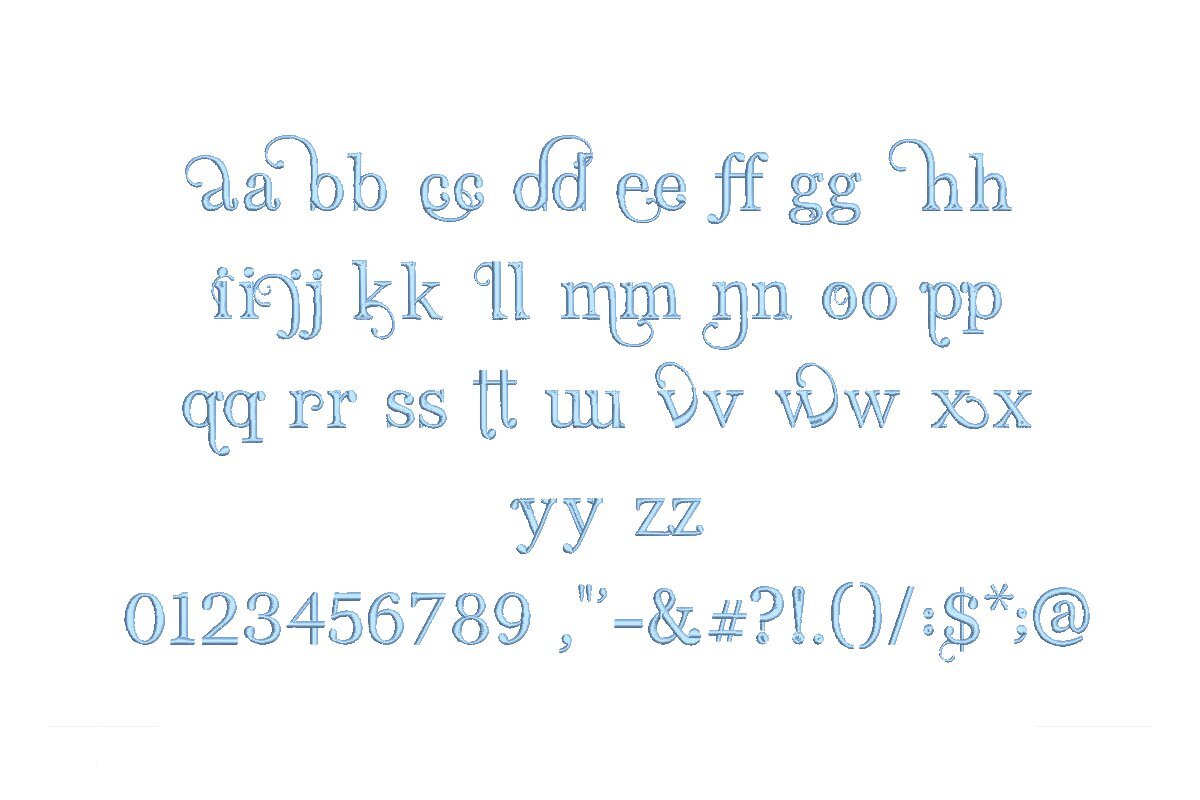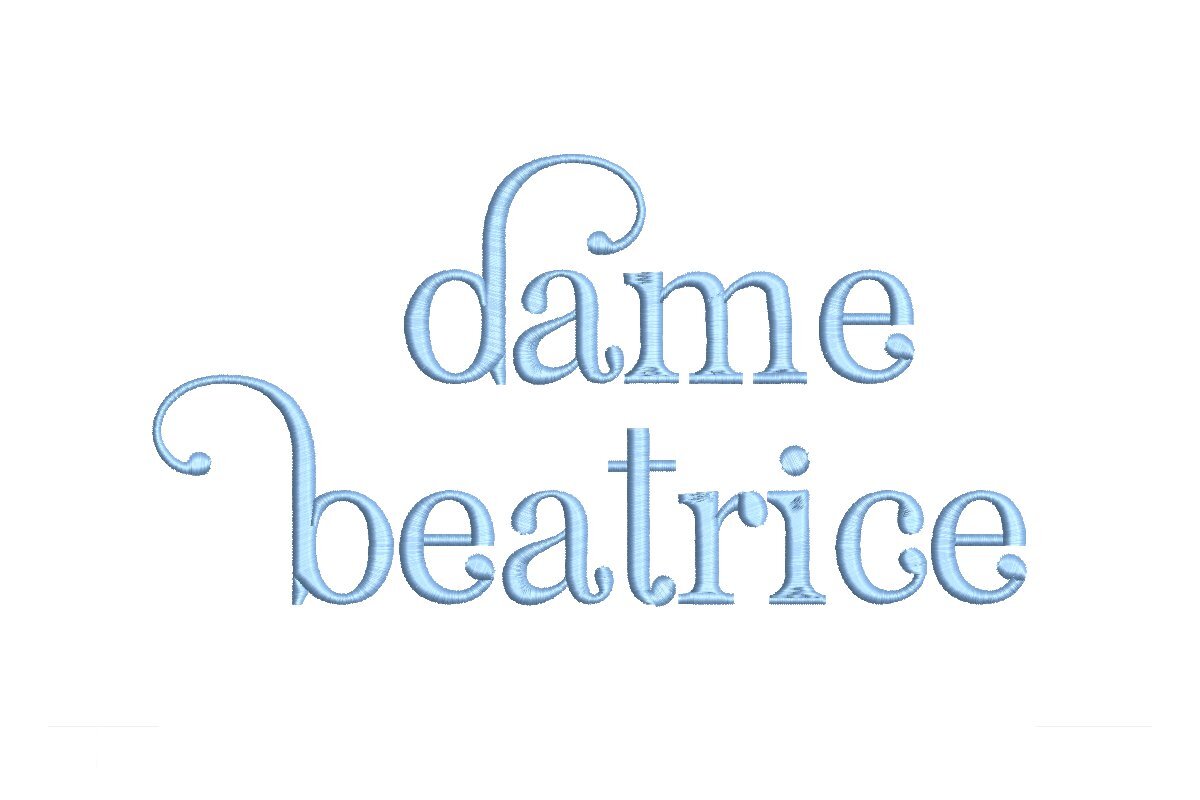
Introducing Dame Beatrice ESA Font - Your Embroidery's Elegance! Expertly tailored for compatibility with Wilcom Studio e4.5.6 and Hatch 3 versions and beyond, this font exudes a timeless charm. Whether you're a seasoned pro or a creative enthusiast, Dame Beatrice ESA Font offers an array of elegant possibilities. Seamlessly integrate with the latest software for efficient workflows. Every stitch embodies precision, ensuring your embroidery projects shine. Elevate your collection with Dame Beatrice ESA Font and infuse your designs with an enduring touch of class. Don't miss the chance to make your embroidery truly exceptional. Start your journey towards timeless elegance today!